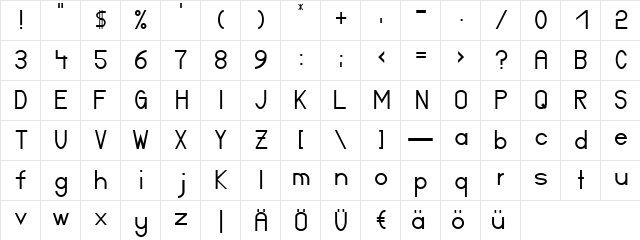
Certified Regular
Design Context for Certified
Certified is a composed and adaptable typeface that performs quietly and consistently across a wide range of design contexts.